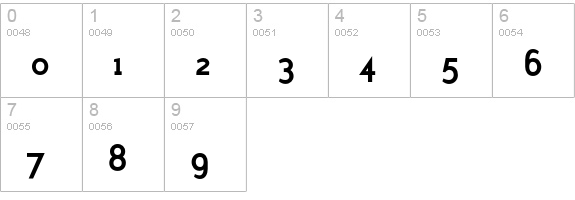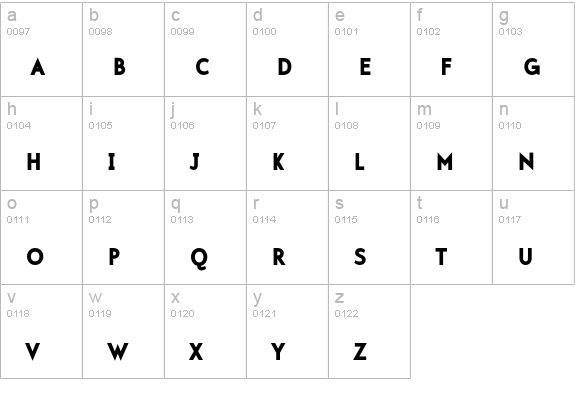
MercuryBoldSmallCaps Font Details
Introducing MercuryBoldSmallCaps font, a versatile and elegant typeface that exudes sophistication and modernity. This font is designed with small caps for a unique and stylish look, making it perfect for a wide range of design projects. Whether you're creating branding materials, editorial designs, or digital content, MercuryBoldSmallCaps font is sure to make a statement. And the best part? It's completely free! You can download MercuryBoldSmallCaps font for free at FontsMarket.com. Don't miss out on this opportunity to enhance your designs with this beautiful and impactful typeface. Elevate your projects with the timeless charm of MercuryBoldSmallCaps font today.